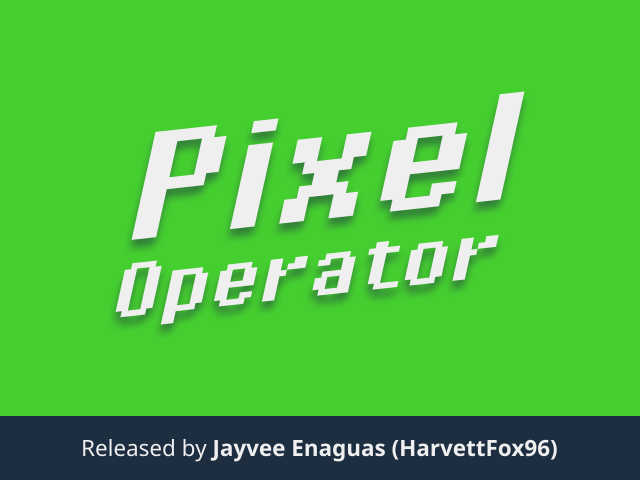
Font name: | Pixel Operator |
Author: | Jayvee Enaguas |
Note by Jayvee Enaguas | |
Pixel Operator (previously known as the 8-bit Operator) is a libre proportional and monospaced pixel sans serif typeface, created with FontForge. Update Log: Version 2016.04.25 - Better release date version style. - Modified copyright and other metadata fields. - Removed manufacturer name since was now dissolved. Browse source font files available at notabug.org: https://notabug.org/HarvettFox96/ttf-pixeloperator Released by Jayvee Enaguas (HarvettFox96), licensed under the SIL OFL 1.1. (C) 2009-2016. |